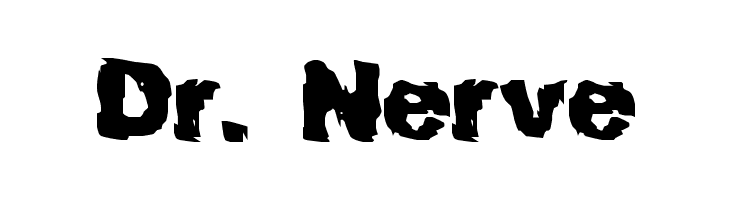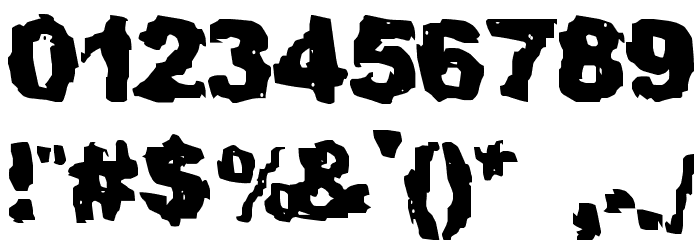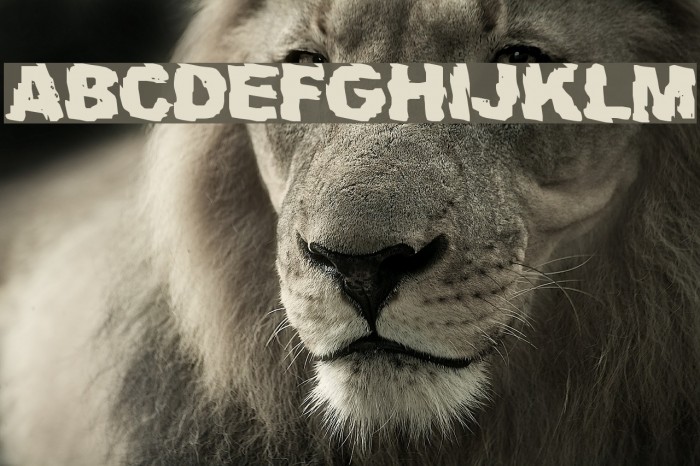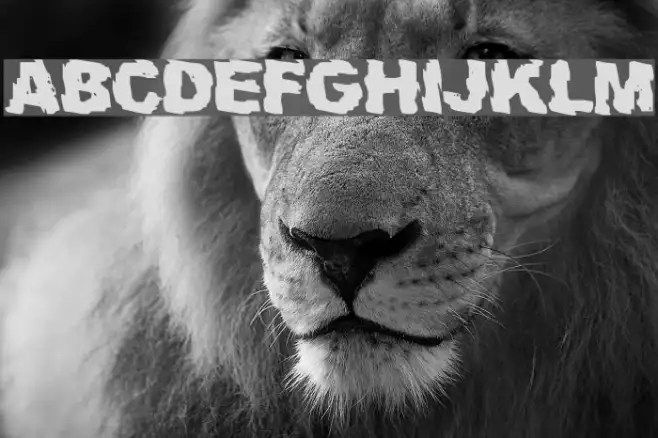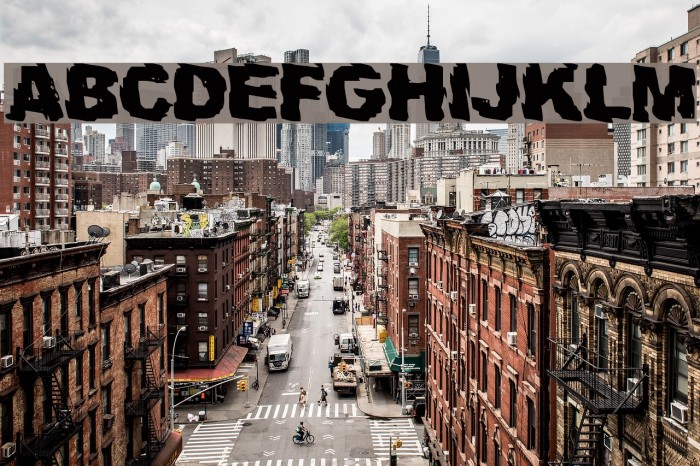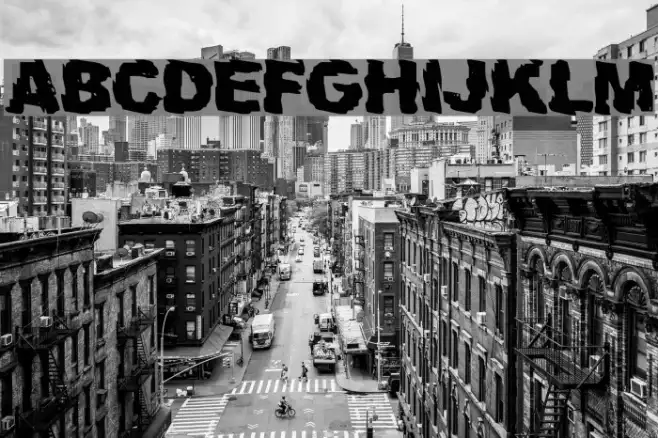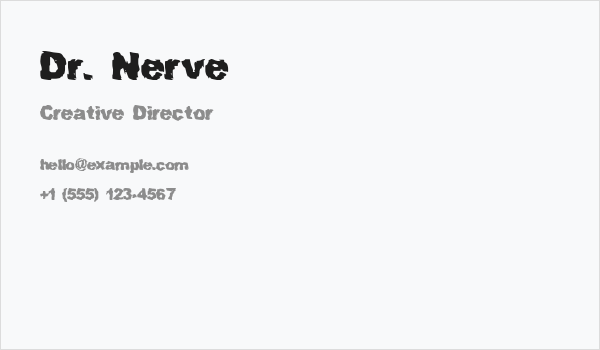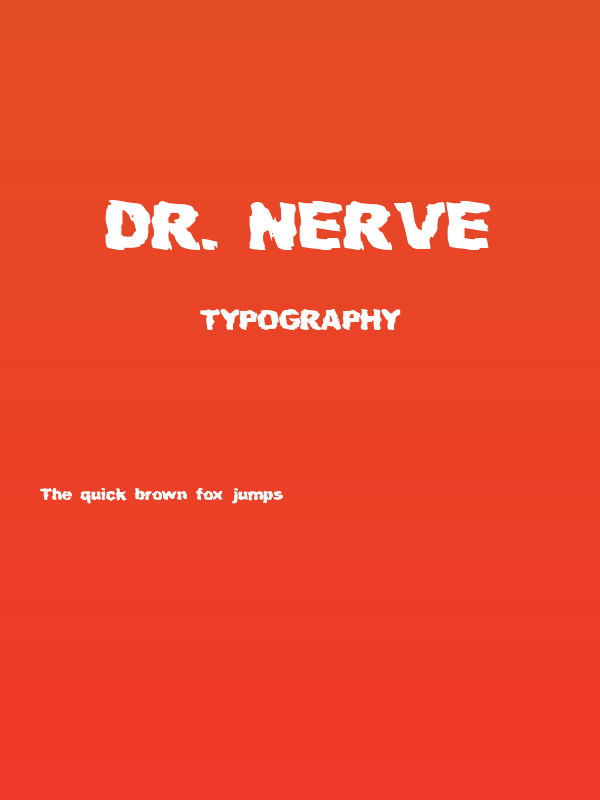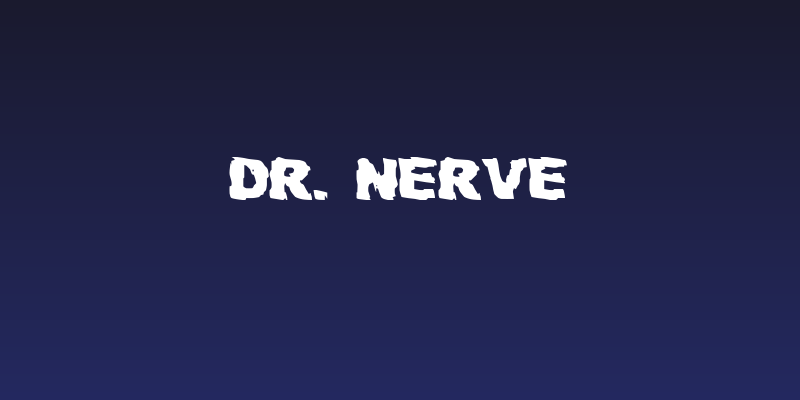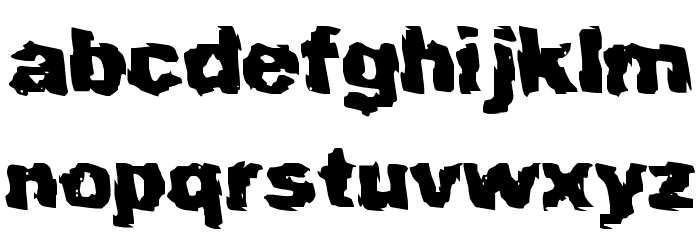
Dr. Nerve Font
Dr. Nerve Description
This font features a bold and rugged design with a distressed, grunge-like appearance. The characters are irregular and jagged, giving a sense of chaos and energy. The uppercase and lowercase letters maintain a consistent style, with thick strokes and uneven edges that create a dynamic and edgy look. Numbers and special characters follow the same aesthetic, making the font suitable for projects that require a bold statement. Its unique style is perfect for designs that aim to capture attention and convey a sense of rebellion or nonconformity.
| Proposed Projects | Ideal for album covers, posters, streetwear branding, and edgy graphic designs. |